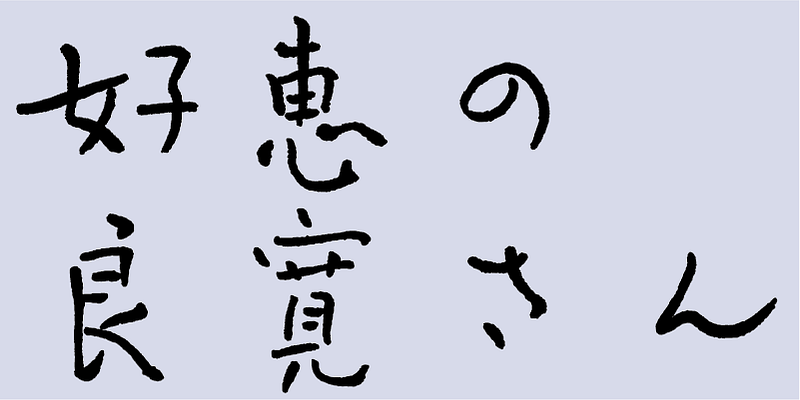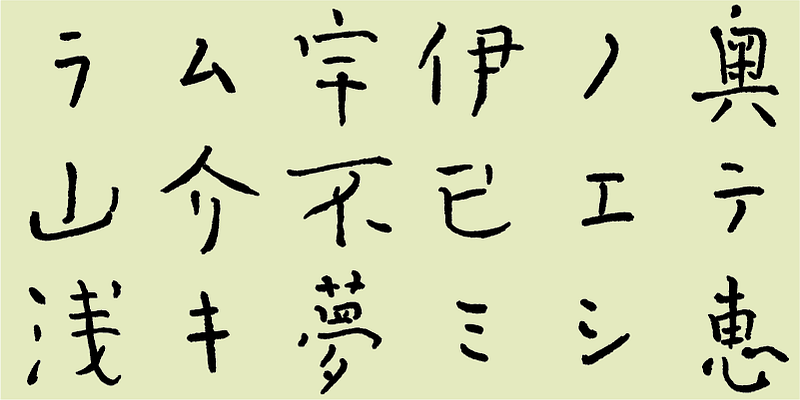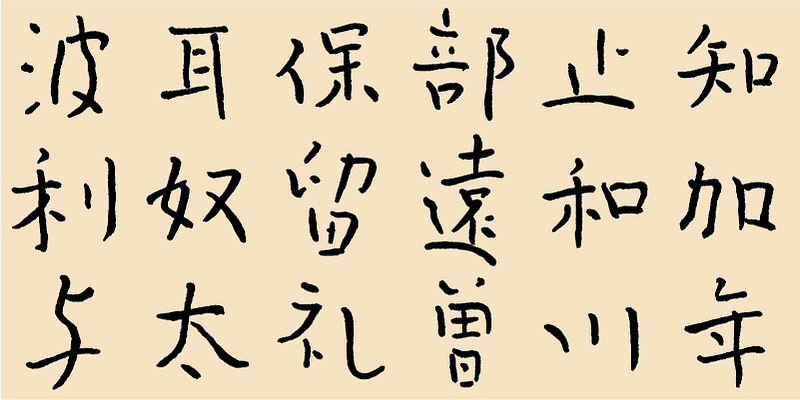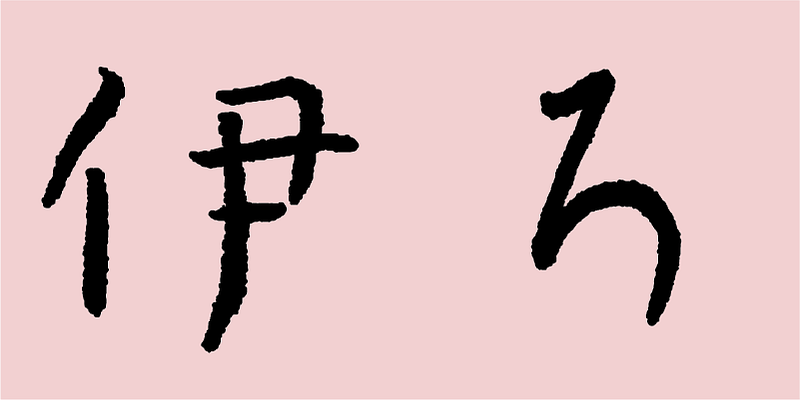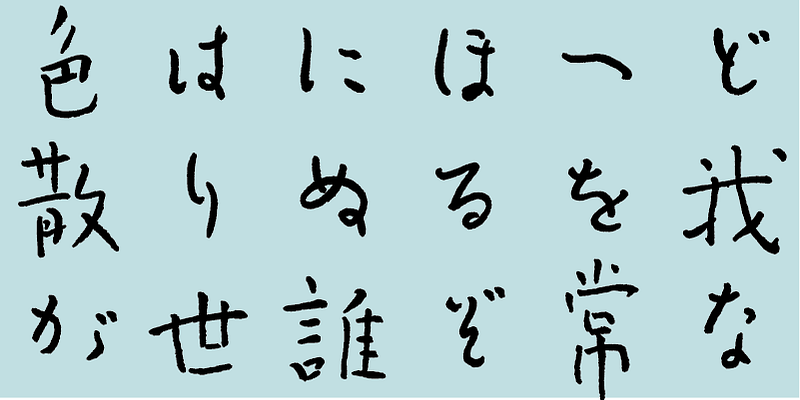
Ryokan was a Zen monk from the Edo Period and a skilled calligrapher. Before creating this brush-script typeface, I carefully studied Ryokan’s works and practiced writing characters in his style over and over each day. Finally, I produced a font based on my brush-script typeface design.
Japan has a culture of “kana writing”. Kana letter forms are characterized by uniquely soft and flexible shapes with rounded stroke features. Ryokan’s kanji letter forms share some characteristics typically unique to kana writing. Ryokan’s characters may look unbalanced, but are actually exquisitely well-balanced, due to wider spaces within a character shape, as if the character is filled with air.
Producing digital fonts based on traditional calligraphy is difficult. Traditionally, characters were written from top to bottom with successive characters arranged fluidly and frequently connected. Unlike traditional writing with a brush, a digital font needs to support both horizontal and vertical writing modes and offer more precise control of character sizes. As you type using this typeface, it may become difficult to control spaces between characters, but within this difficulty, there is a kind of freedom. Although Ryokan’s original calligraphic works typically contained many thin characters, I created three weights, M, DB and B. This brush-script font aims to reproduce the modesty, tolerance and open-mindedness, and humility expressed by Ryokan’s letter forms. Please enjoy using this typeface.
This font includes the 1,000 kanji characters most frequently used by newspaper companies, publishing houses, and linguistic research institutes, plus 206 kana characters and punctuation marks.
Yoshie no Ryokan-san
Ryokan was a Zen monk from the late Edo period (1603–1868). He created highly regarded calligraphic works displaying a humane and free-form quality. His calligraphy was based on the tradition of masters such Kaiso (Huaisu) from the Tang Dynasty in China. The Yoshie no Ryokan-san family originally had two variations: “Yoshie no Ryokan-san”, a brush-script typeface closely matching Ryokan’s writing, and “Yoshie no Ryokan-san Pen”, a script typeface based on Ryokan’s writing with a felt tip pen. This version is the brush-script typeface.